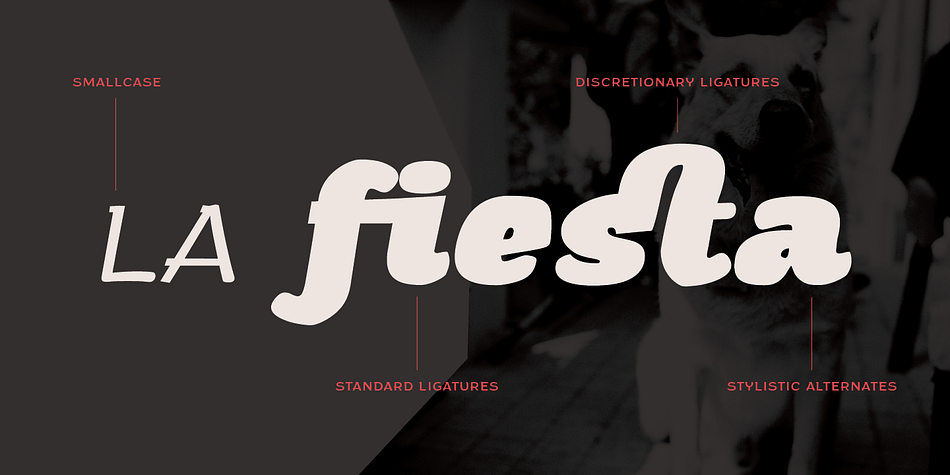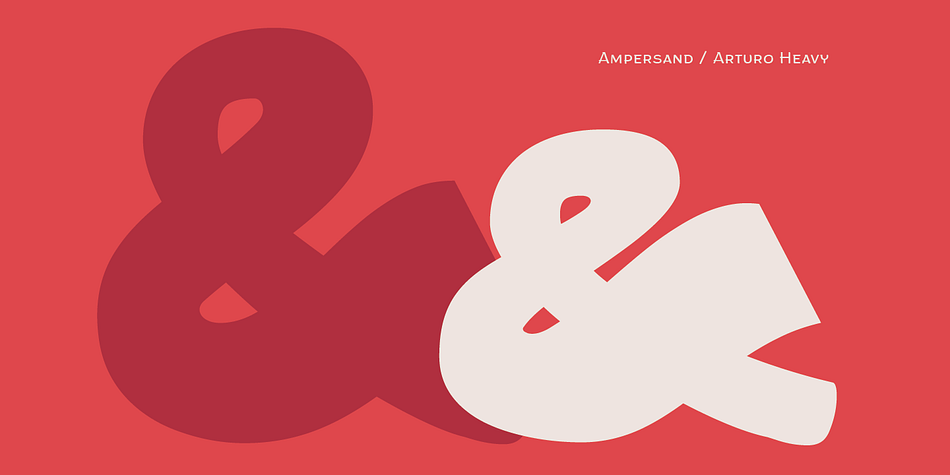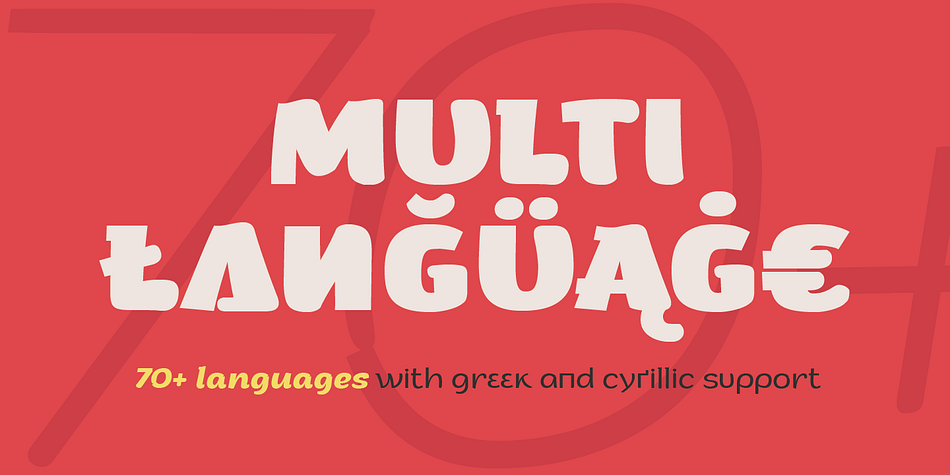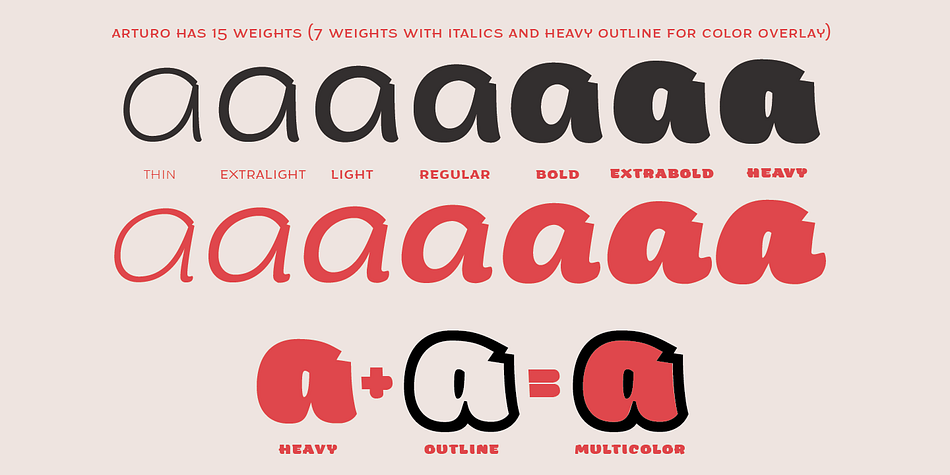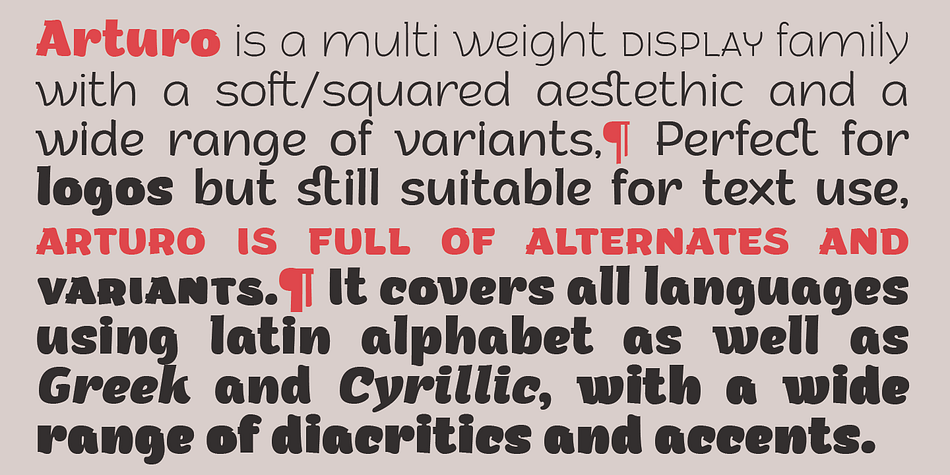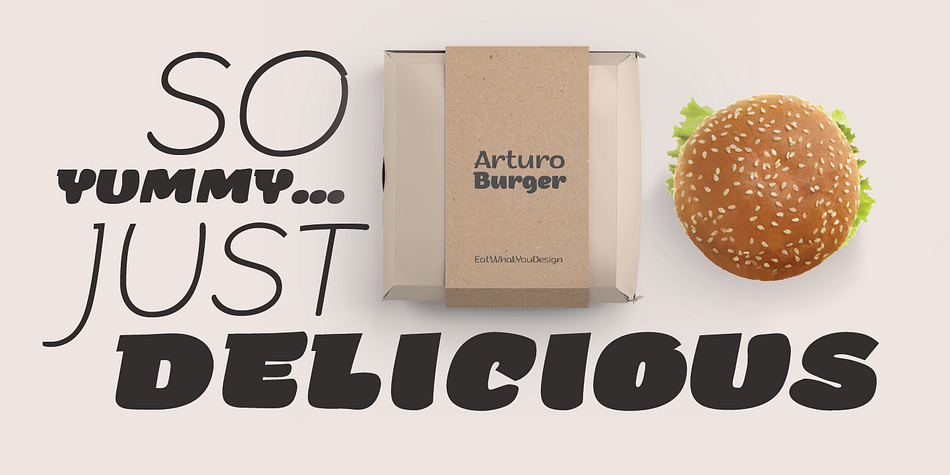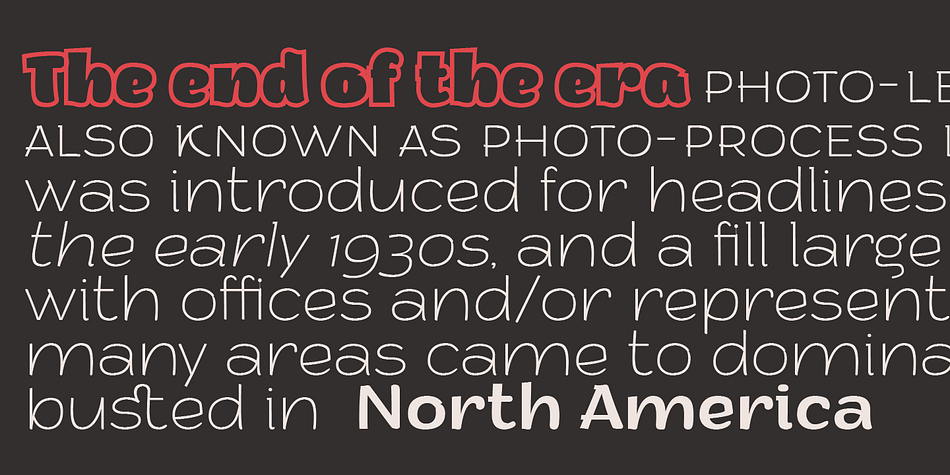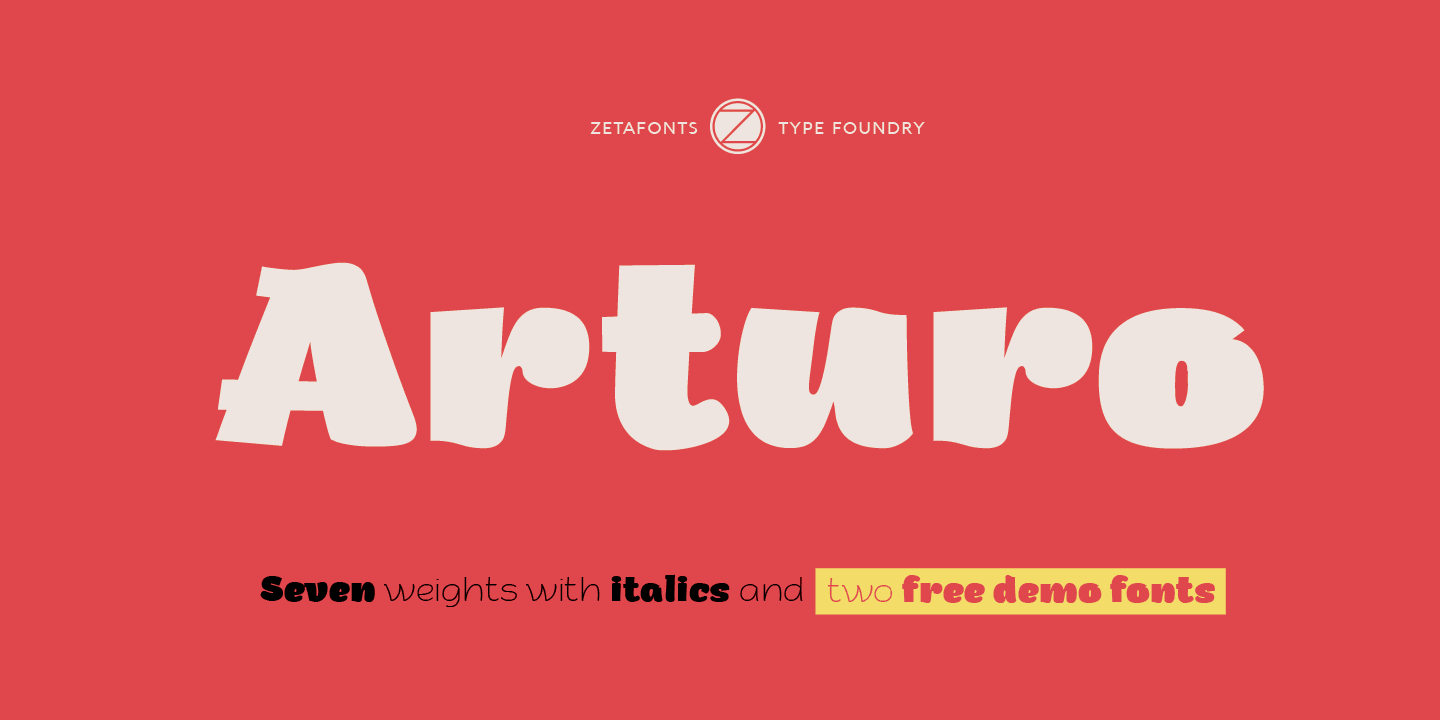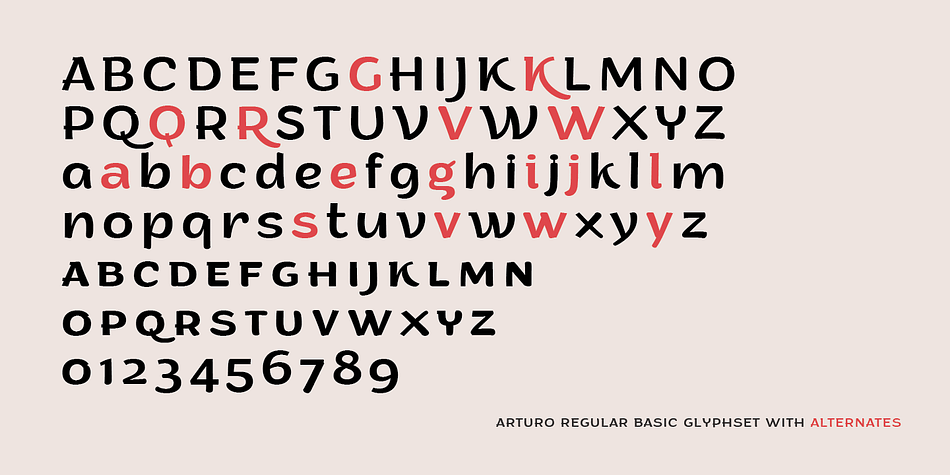
Designed by Francesco Canovaro, Arturo is a display sans and brush display font family. This typeface has seventeen styles and was published by Zetafonts.
Arturo is a sans serif family designed by Francesco Canovaro as part of his research in the digital reinvention of handmade brush lettering.
Marrying a fun, playful approach to letterforms to the versatility of a text family with multiple weights and advanced features, Arturo comes in seven weights with matching italics, and sports a wide array of OpenType features including stylistic alternates, small caps and discretionary ligatures (providing options for display usage and fine-tuning in logo design) as well as more offbeat features as ordinals, superior and inferior numerals, tabular, lining and oldstyle figures and OpenType-generated fractions.
The family is complemented with a outline version that can be used on its own or together with the heavy weight for multilayer color font inventions.